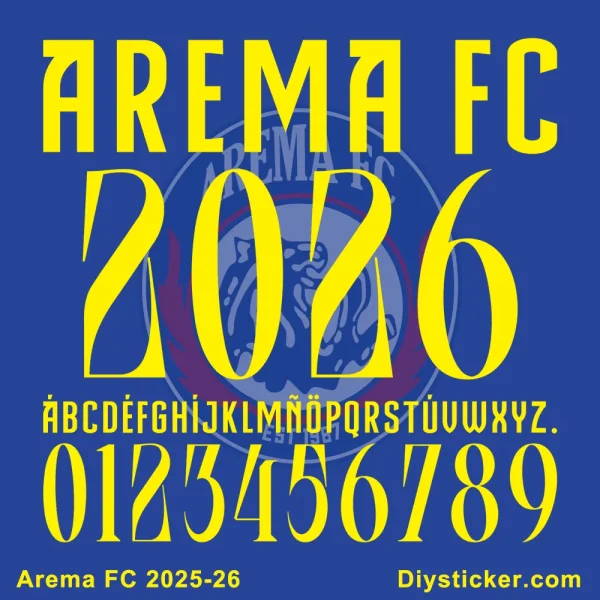
Arema FC 2025-26 Font Downloads
Design with the spirit of Arema FC using the official 2025-26 Season Font. This professionally crafted typeface replicates the club’s distinctive lettering, ideal for creating authentic jerseys, fan merchandise, and digital content for Singo Edan supporters.